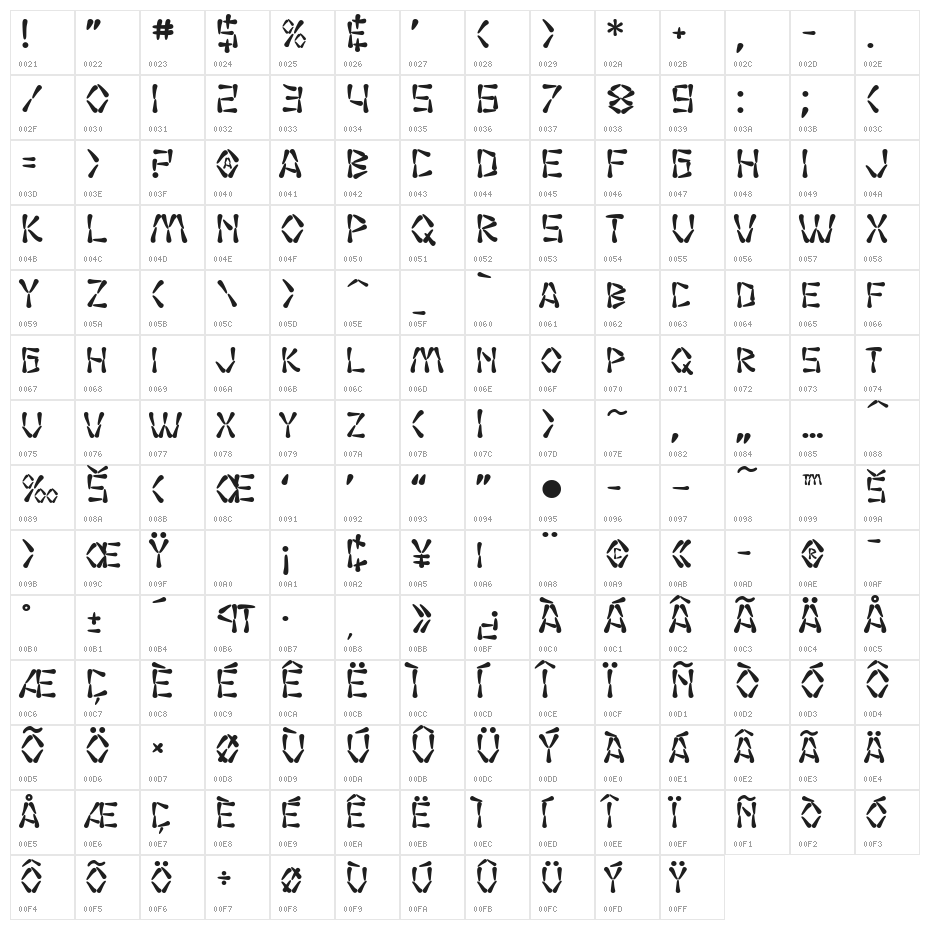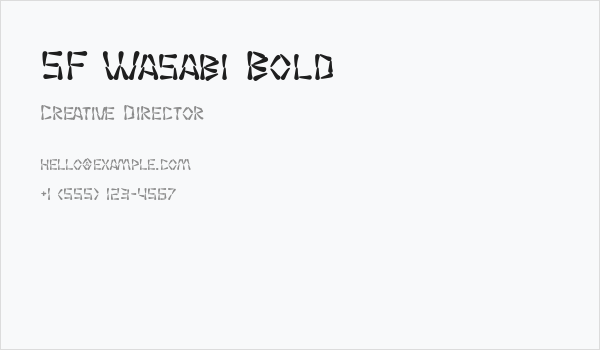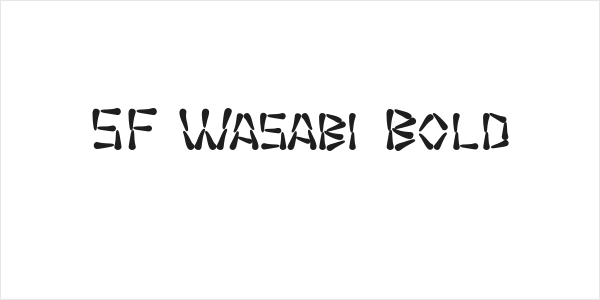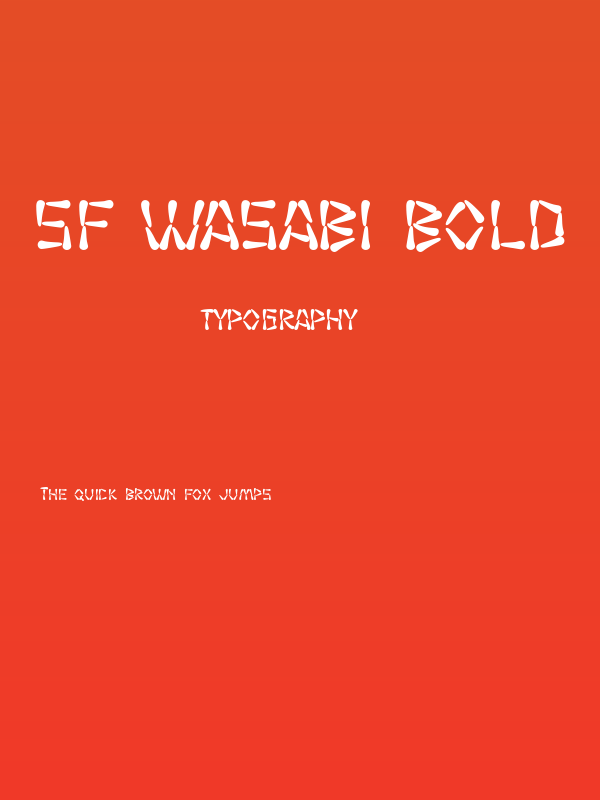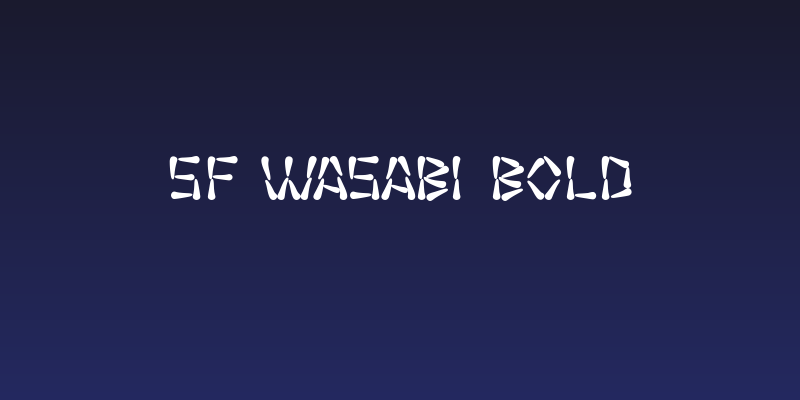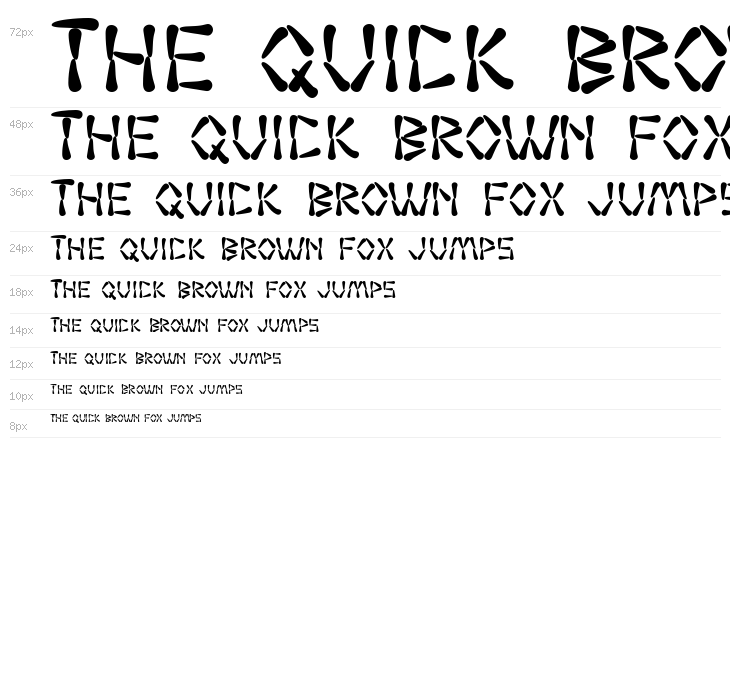
SF Wasabi Bold Font
SF Wasabi Bold Description
This font features a bold and playful design with a unique, organic appearance. The characters are formed with thick, rounded strokes that resemble brush strokes or bamboo segments, giving it a lively and dynamic feel. The font maintains a consistent weight throughout, with each letter exhibiting a slightly irregular shape that adds to its handcrafted aesthetic. The overall look is modern yet whimsical, making it suitable for creative and informal applications. The numbers and special characters follow the same design principles, ensuring a cohesive appearance across all elements.
| Proposed Projects | Ideal for creative projects such as children's books, playful branding, event posters, and artistic packaging designs. |